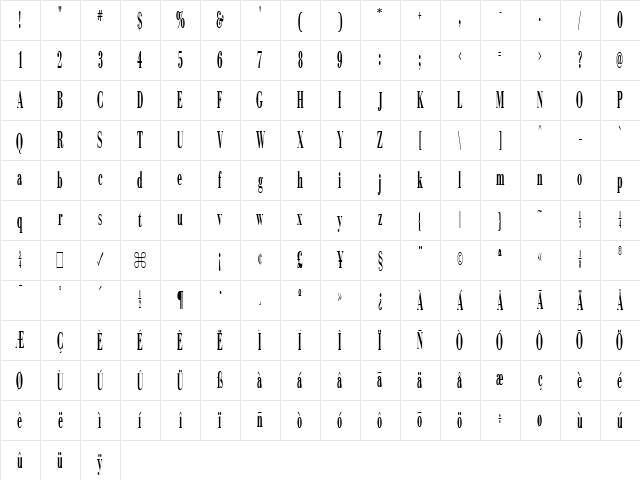
Campagna DB Regular
Design Context for Campagna DB
Campagna DB is a composed and adaptable typeface that performs quietly and consistently across a wide range of design contexts.